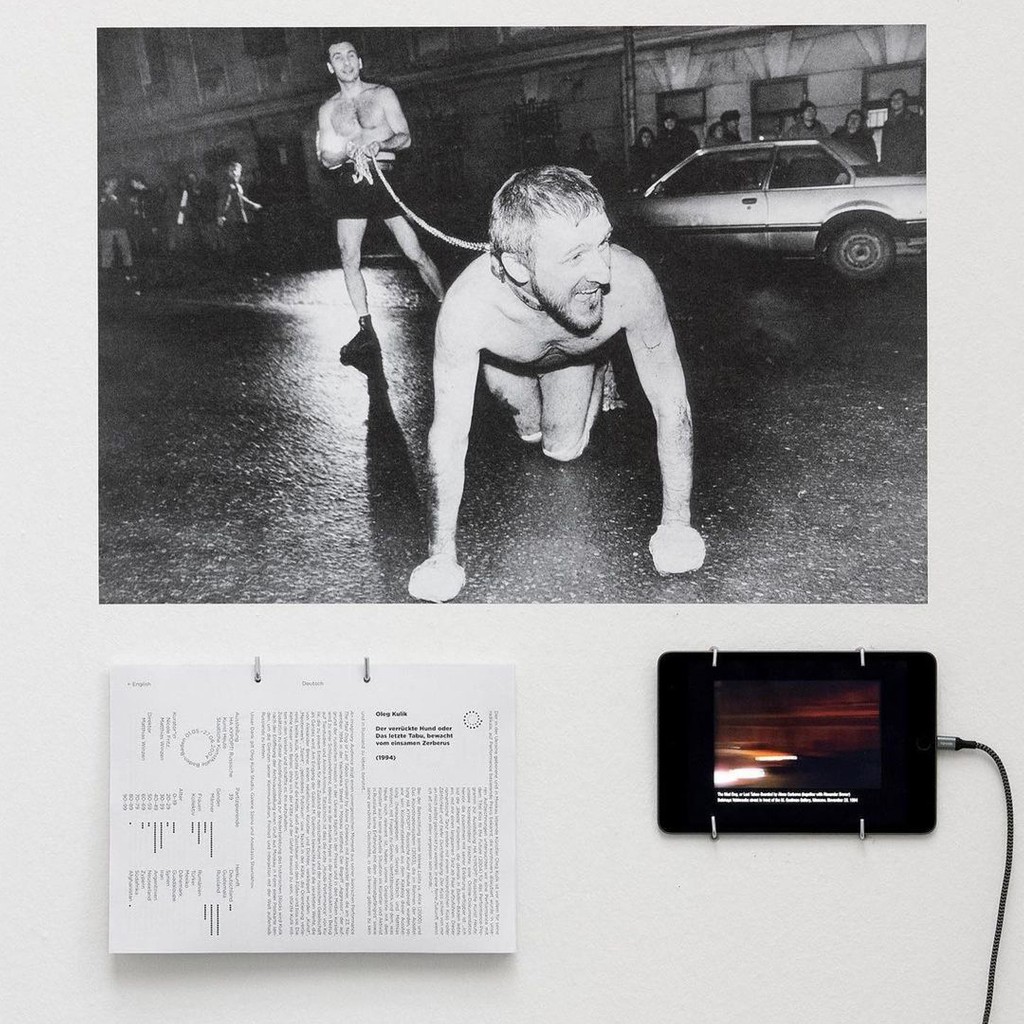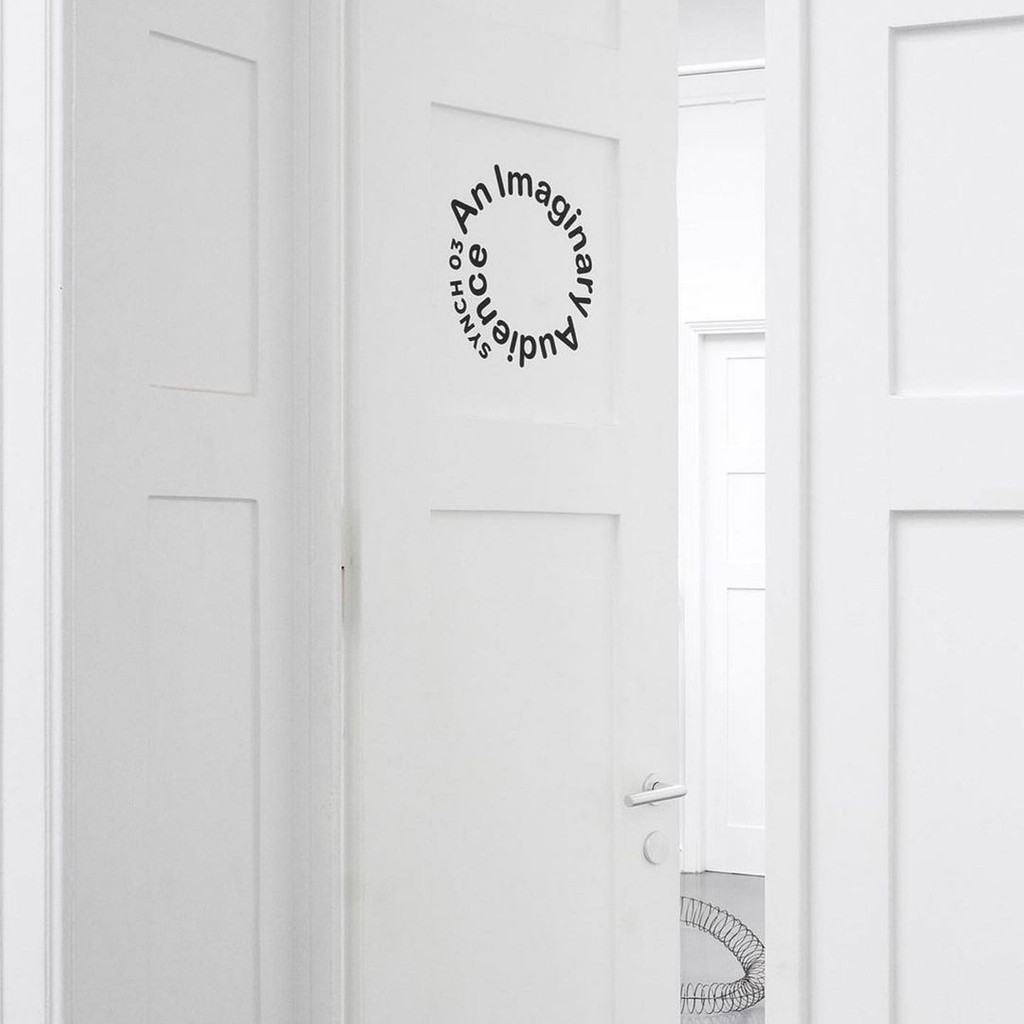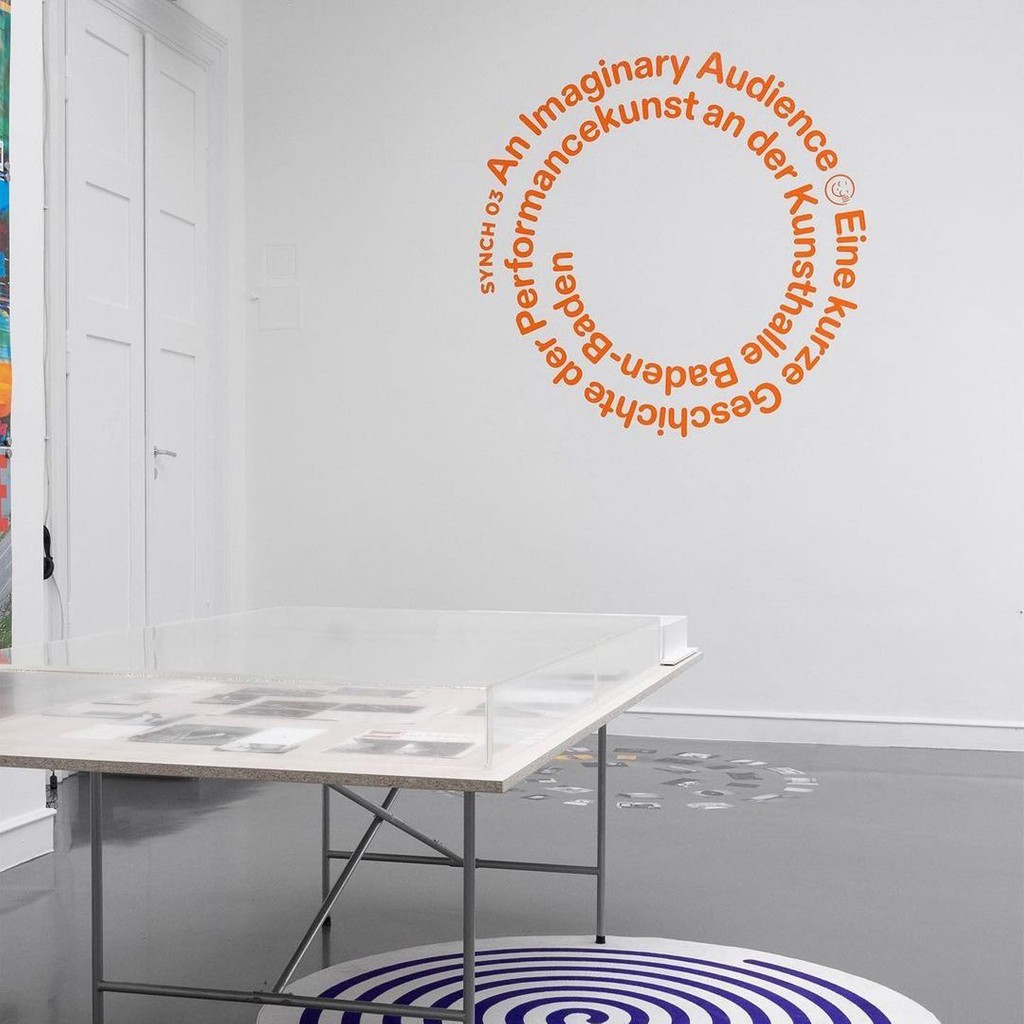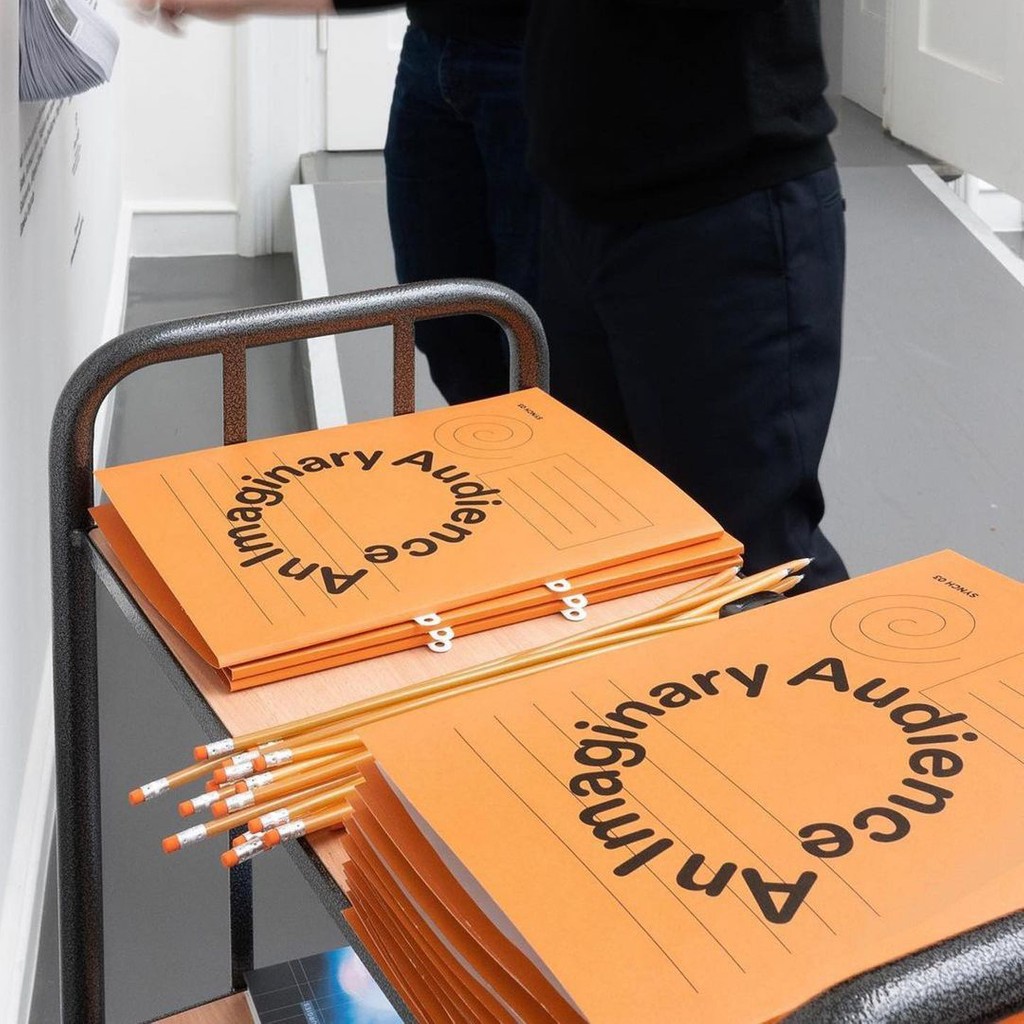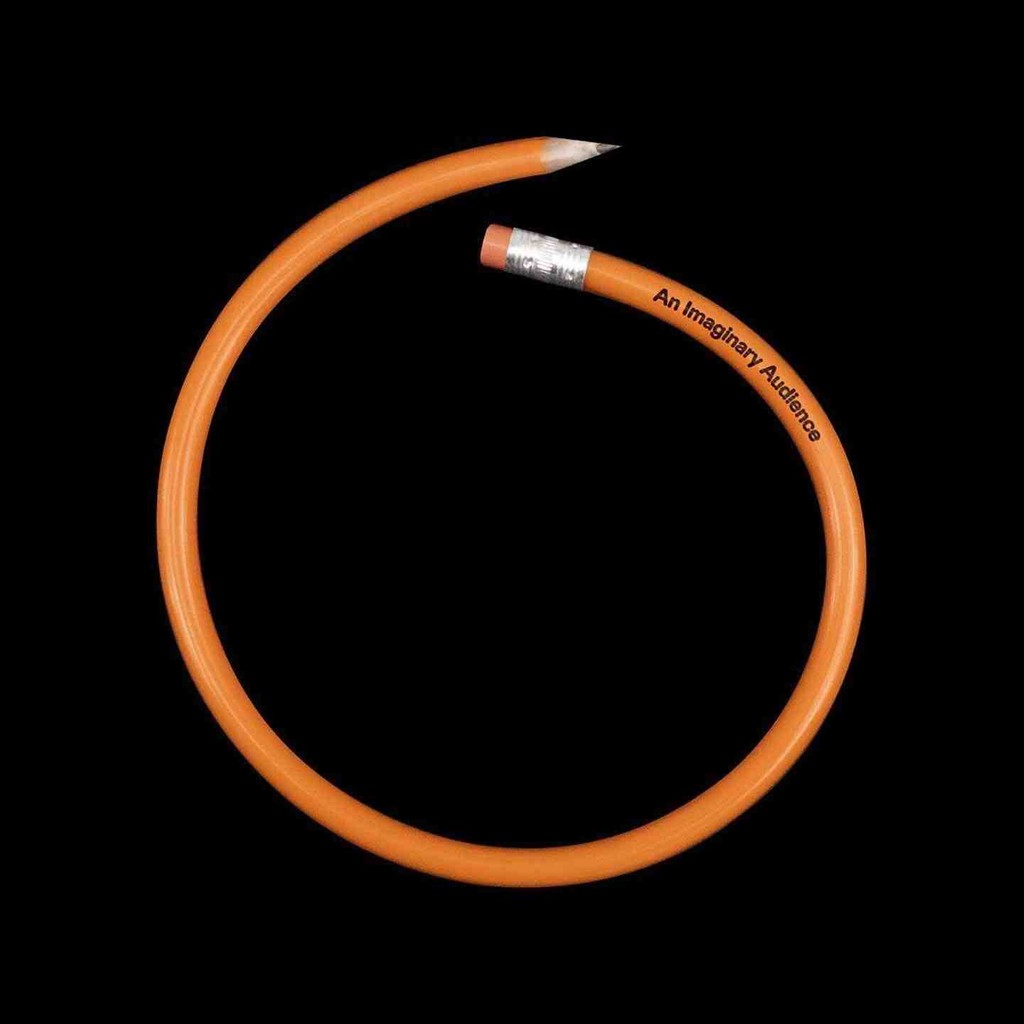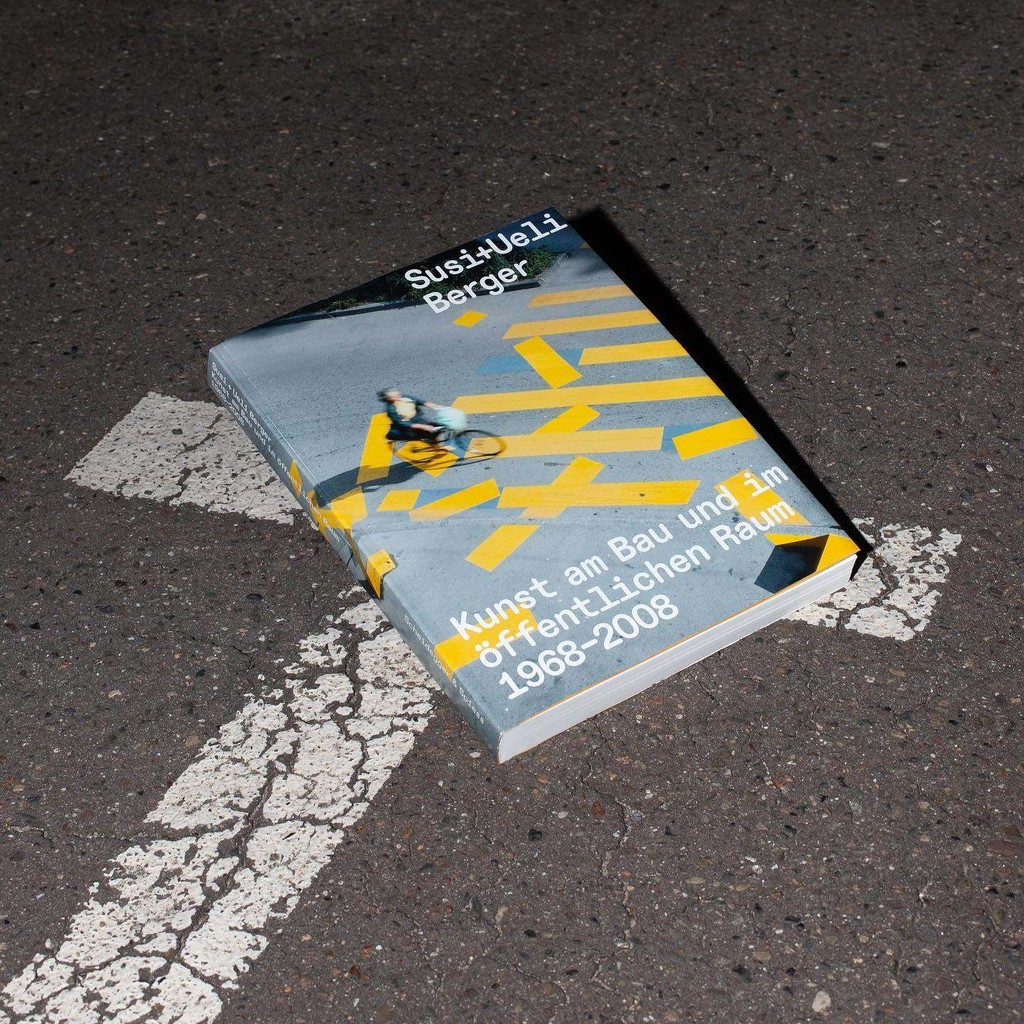
Diatype Rounded
Alternate Capital G & u & y
Grungy
Alternate a
a → a
Alternate q
q → q
Alternate t
t → t
Standard vs Alternate Punctuation
Alternate R
R → R
Alternate I
I → I
Alternate J
J → J
Alternate 1 & 4 & 6 & 9
Alternate Arrows
About Diatype Rounded
Diatype Rounded is a warm, curvy sans with friendly shapes informed by the Swiss Neo-grotesque genre and pre-digital typesetting machines. The overall vibe is bold, a little pop, and has an understated sense of humor to it. These rounded forms feel oddly mechanical — as if each character has been engraved with a chunky tool in one continuous line. We buffered the little beauties one by one 💅
Diatype Rounded In Use
Exhibition design. Design by Matter Of
Susi and Ueli Berger catalog. Design by Dan Solbach & Maria Peskina
Nona. Rebranding by Lucy agency
TRANSFORMATION. Design by Atelier HKB
Simple comme Sylvain, Design by Romain Thiollet
KiNK — For The People. Design by Luke Griffiths